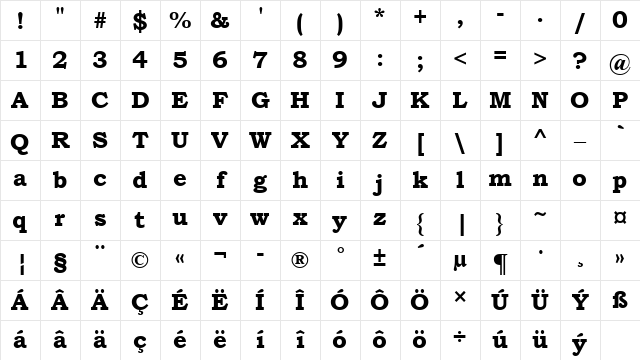
Bookman Old Style CE Bold
Design Context for Bookman Old Style CE
Bookman Old Style CE is a composed and adaptable typeface that performs quietly and consistently across a wide range of design contexts. Its bold stroke weight gives it real presence on the page.